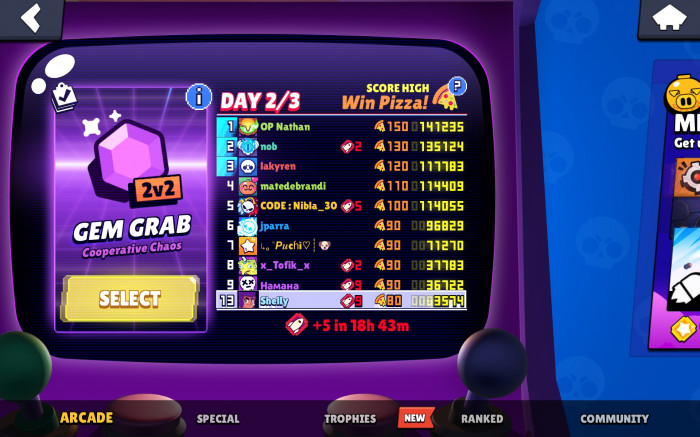
• Brawl stars font arcade Season 34 but custom are lowercase and uppercase excluding X because capital X is built in
21/1/2025 Fixed the Uppercase M
27/5/2026 Added more latin 1 supplement letters and alternates
The numbers are in the score